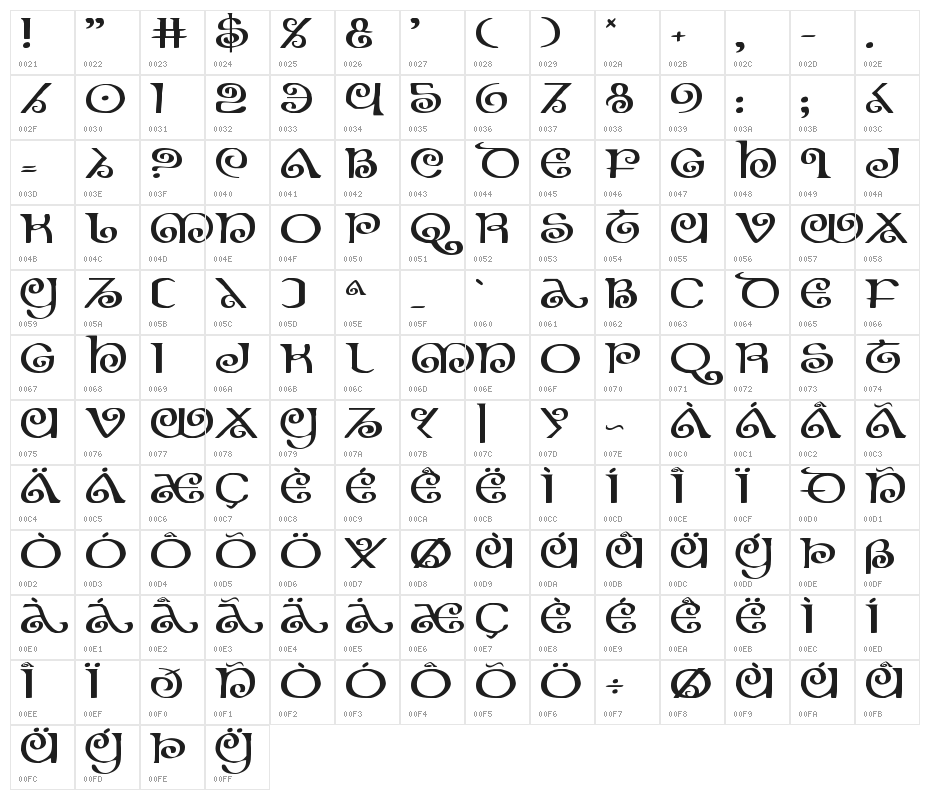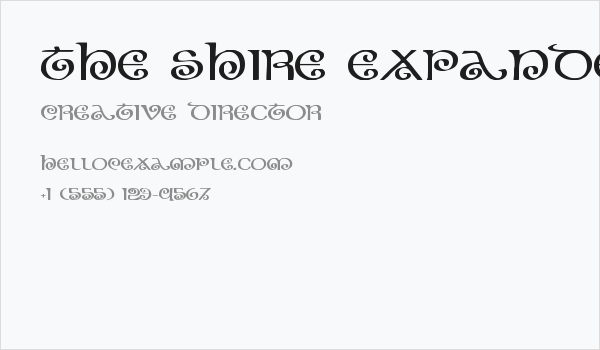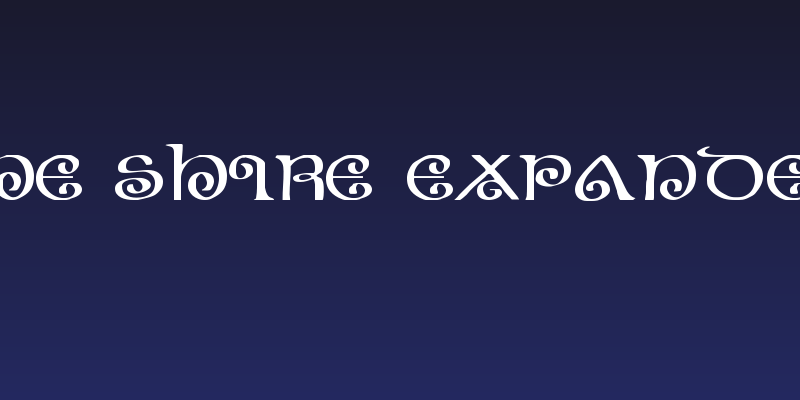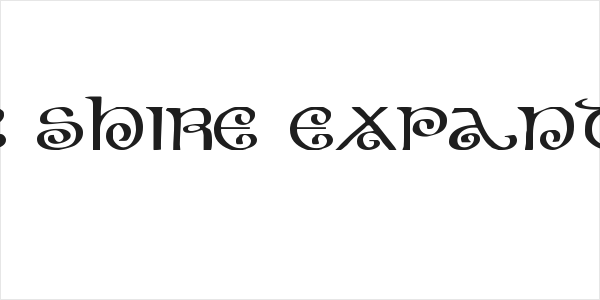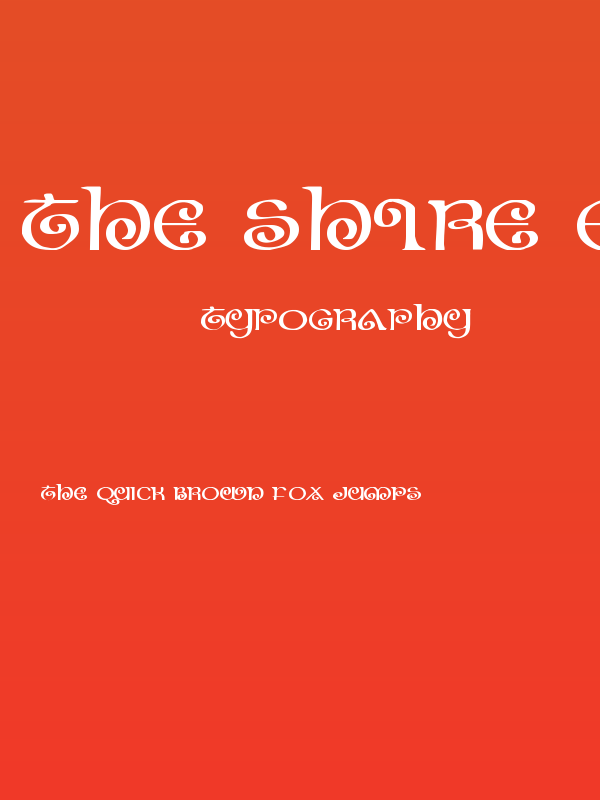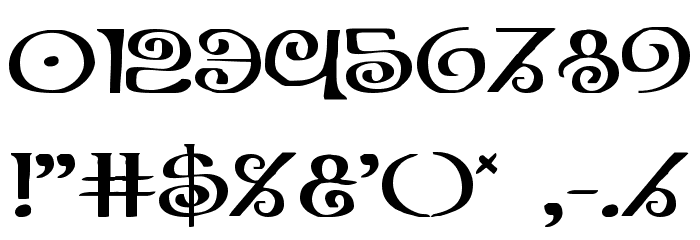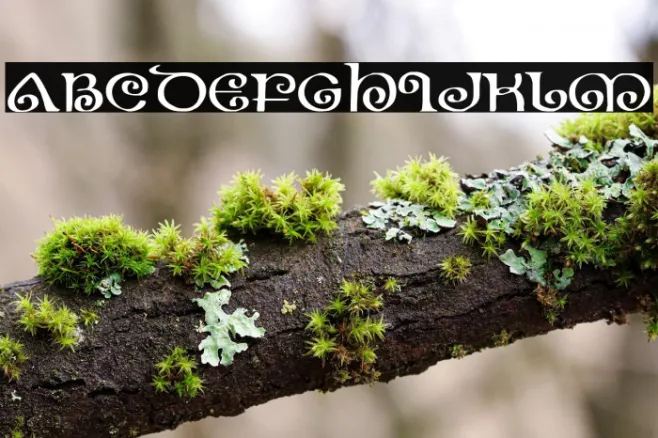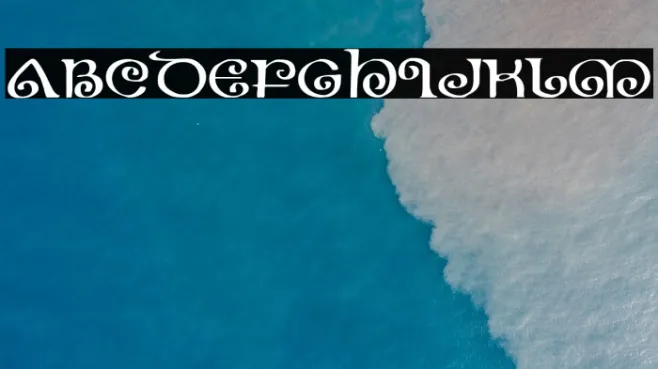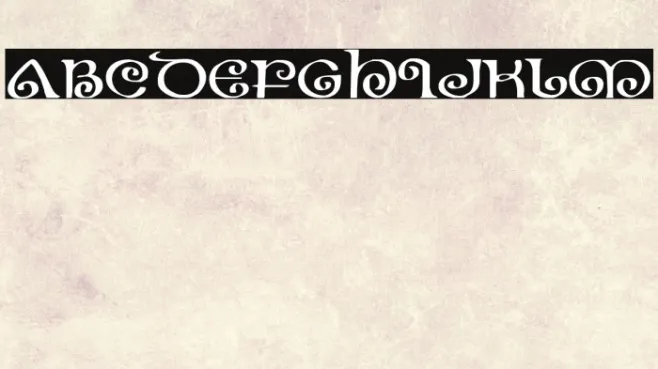
The Shire Expanded Font
The Shire Expanded Description
This font features a whimsical and decorative style, characterized by its intricate and flowing letterforms. Each character is adorned with unique curls and swirls, giving it an enchanting and fantasy-like appearance. The uppercase and lowercase letters maintain a consistent design, with the uppercase being slightly more elaborate. The numerals and special characters follow the same ornate theme, ensuring a cohesive look across all glyphs. The overall design evokes a sense of magic and mystery, making it suitable for projects that require a touch of fantasy or elegance.